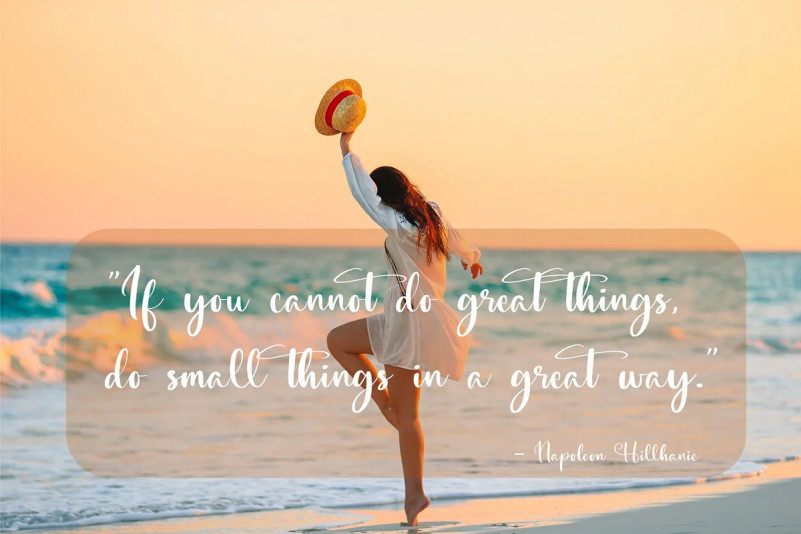
The Cralington Signature Typeface
The Cralington Signature – Signature Script Font, from Perspectype Studio, is a premium signature font, suitable for any projects such as: logos, branding projects, homeware designs, product packaging, mugs, quotes, posters, shopping bags, t-shirts, book covers, name card, invitation cards, greeting cards, label, photography, watermark, special events, and all your other luxury projects that need a premium signature taste.